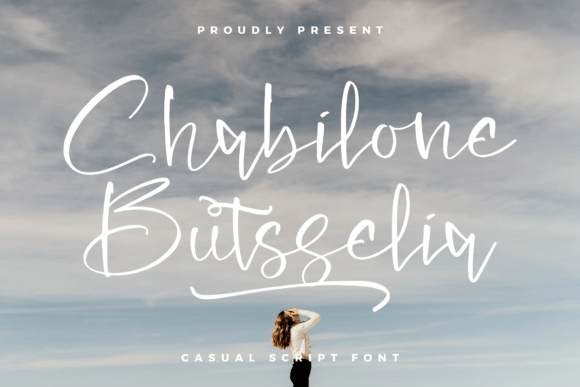
Introducing Chabilone Butsselia Font, the perfect choice for adding a touch of romance and elegance to your projects. Created by Letterfabric, this casual script font is designed to captivate and inspire.
Whether you're working on a logo, branding project, homeware design, or product packaging, Chabilone Butsselia Font will elevate your creations to new heights. Its fluid and graceful strokes will effortlessly convey the essence of your brand or message.
Imagine your quotes, posters, and shopping bags adorned with the exquisite beauty of Chabilone Butsselia Font. Its delicate curves and stylish flourishes will breathe life into your designs, leaving a lasting impression on your audience.
Not only is this font a stunning choice for printed materials, but it also shines in the digital realm. From t-shirts to book covers, name cards to invitation cards, Chabilone Butsselia Font adds a touch of sophistication to every project. Your photographs will come to life with its elegant presence, and your special events will be elevated to the extraordinary.
We understand the importance of creating a memorable experience, and that's why we've carefully crafted this font to evoke emotions and stir the senses. Its gentle curves and flowing lines create a sense of warmth, charm, and intimacy, making it the perfect companion for romantic books and love-themed projects.
But Chabilone Butsselia Font is not just about aesthetics; it's also practical and versatile. Its legibility ensures that your message is clear and easily readable, while its wide range of characters and ligatures provide endless possibilities for customization.